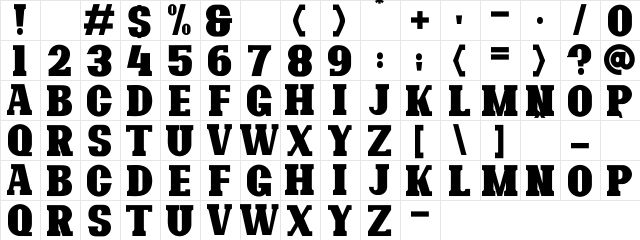
Bonaro Clean Demo Clean
| Designer | Sabrcreative Studio |
Design Context for Bonaro Clean Demo Typeface
Bonaro Clean Demo takes a measured approach to typography — its balanced proportions and neutral character make it a reliable workhorse for both digital and print work.
Pro Tip: Use Bonaro Clean Demo in both headline and body roles to test its range before committing to a single application.